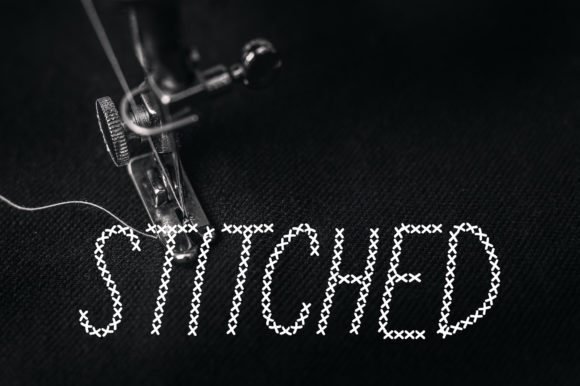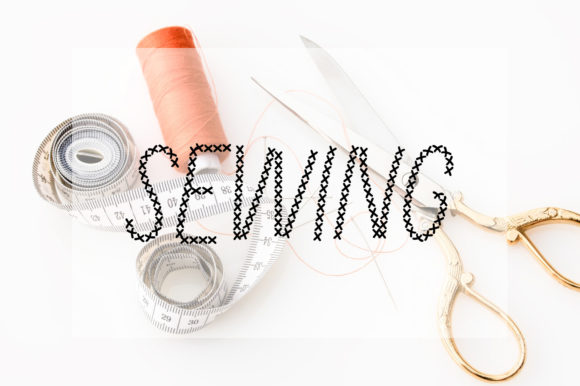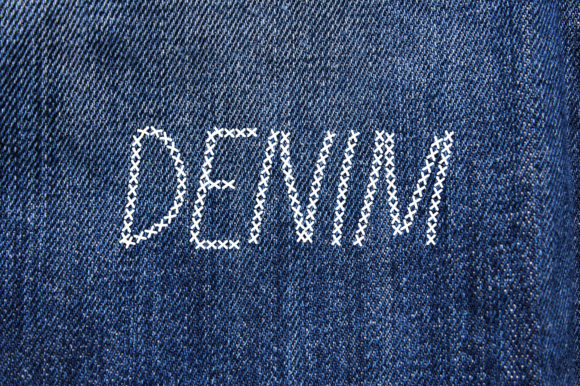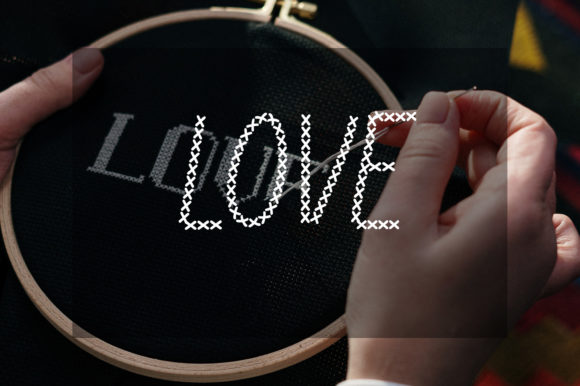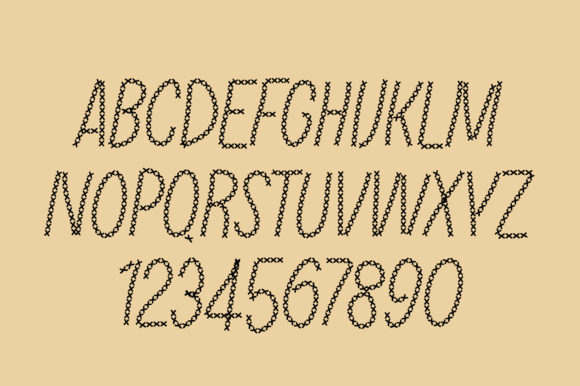
Discover the Charm of Cross Stitch Font: Elevate Your Designs with a Touch of Handcrafted Elegance
Are you looking for a font that adds a personal touch to your designs, something that speaks to the soul of crafting and handmade beauty? Look no further than the Cross Stitch Font. This delightful font is not just a typographic choice; it’s an experience that brings the warmth and uniqueness of cross-stitch patterns to your digital and physical projects. Whether you’re a designer, crafter, or simply someone who appreciates the art of handmade crafts, the Cross Stitch Font is sure to captivate you with its charm and versatility.
What is Cross Stitch Font?
Cross Stitch Font is a decorative font inspired by the traditional art of cross-stitching. This craft, beloved by many for its meditative qualities and the joy of creating something beautiful with needle and thread, has now been transformed into a digital font. The result is a typeface that mimics the appearance of cross-stitch patterns, complete with the characteristic X-shaped stitches. This font brings a nostalgic feel to modern designs, making it perfect for projects that require a touch of nostalgia or a handmade aesthetic.
Uses of Cross Stitch Font
The versatility of the Cross Stitch Font makes it suitable for a wide range of applications. Here are some of the many ways you can use this unique font:
- Crafting: For crafters who love to create handmade cards, scrapbook pages, or any paper craft, the Cross Stitch Font adds an authentic touch. It’s perfect for titles, quotes, or any text that needs to stand out with a personal, crafted feel.
- Digital Designing: Digital designers can use this font in their projects to give them a distinctive look. Whether it’s for social media graphics, blog headers, or digital invitations, the Cross Stitch Font can add a creative and eye-catching element.
- Presentations: Make your presentations more engaging with the Cross Stitch Font. It’s particularly effective for headings or key points where you want to emphasize a personal or handmade aspect.
- Greeting Cards Making: For those who enjoy making their own greeting cards, this font can add a beautiful, personalized touch. It’s perfect for special occasions like Christmas, Easter, or birthdays.
Why Choose Cross Stitch Font?
There are several reasons why the Cross Stitch Font stands out from other decorative fonts:
- Uniqueness: In a world where digital fonts are plentiful, the Cross Stitch Font offers a fresh and unique aesthetic that’s inspired by traditional crafts.
- Versatility: Despite its specific inspiration, the Cross Stitch Font is surprisingly versatile. It can be used in both digital and print projects, and its charm works well across various themes and styles.
- Emotional Connection: Perhaps most uniquely, the Cross Stitch Font offers an emotional connection to the craft of cross-stitching. It brings a sense of warmth, care, and personal touch to any project.
Tips for Using Cross Stitch Font Effectively
To make the most of the Cross Stitch Font, consider the following tips:
- Mix and Match: Combine the Cross Stitch Font with other fonts to create visual interest. A bold font paired with the more delicate cross-stitch pattern can make for a compelling design.
- Color Choice: Cross-stitch patterns are known for their vibrant colors. Consider using the Cross Stitch Font in bright, contrasting colors to really make your text pop.
- Project Theme: Keep the theme of your project in mind when using the Cross Stitch Font. For example, a vintage or rustic theme can be enhanced with this font, making it a perfect fit for wedding invitations, party decorations, or historical references.
| Font Name | Cross Stitch Font |
| Author | Vladimir Carrer |
The Cross Stitch Font is more than just a typographic style; it’s a way to infuse your projects with a sense of tradition, craftsmanship, and personal touch. Whether you’re a professional designer looking for a unique element to add to your work or a hobbyist seeking to enhance your crafts, this font offers endless possibilities. With its charm, versatility, and the emotional resonance it carries, the Cross Stitch Font is sure to become a favorite in your collection.